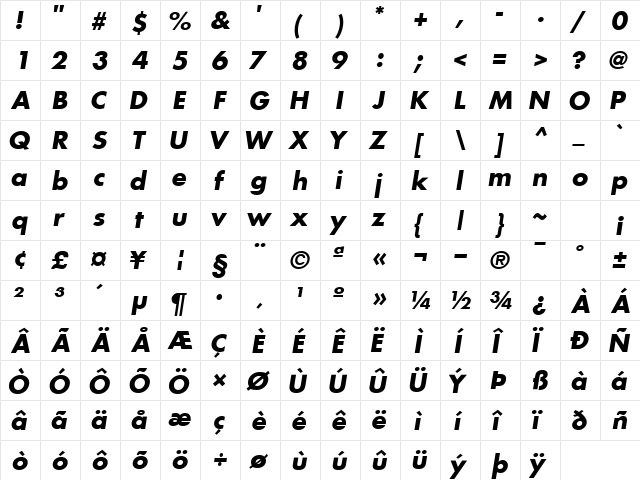
KudosSSK Bold Italic Font Preview
KudosSSK Bold Italic
KudosSSK Bold Italic Font Details
Design Context for KudosSSK Typeface
KudosSSK offers clean, dependable letterforms without strong stylistic allegiance, making it a practical choice for designers who need flexibility. The slanted form adds forward momentum and visual energy. Its bold stroke weight gives it real presence on the page.
Pro Tip: Use KudosSSK for emphasis, pull quotes, and subheadings where its slanted energy can add rhythm to the layout.